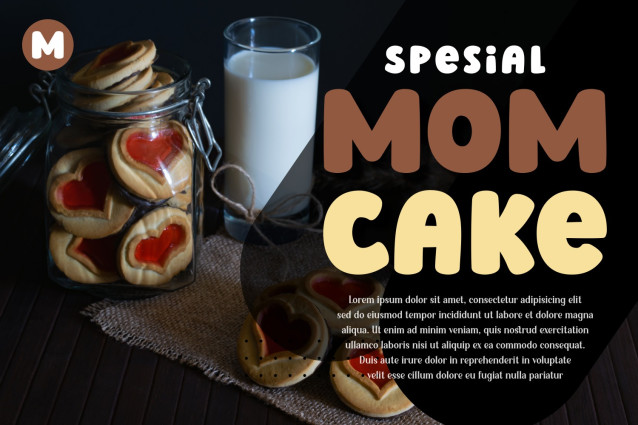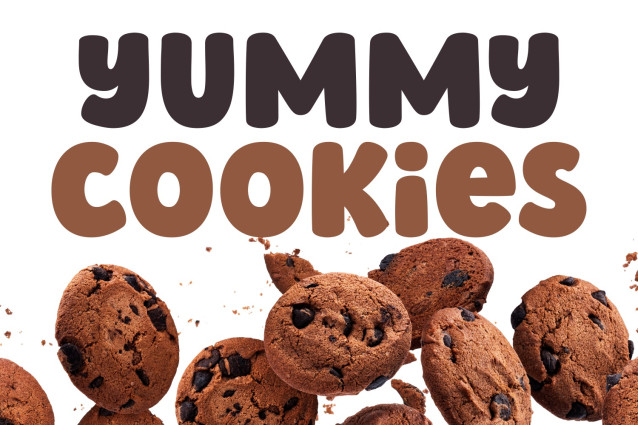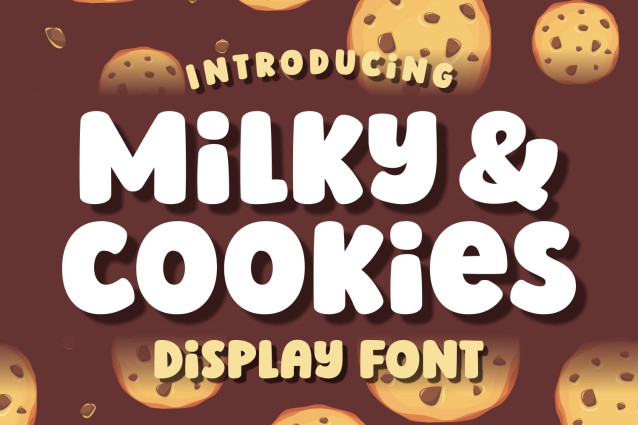
Milky and Cookies Font
Milky and Cookies – a bold, playful, and fun display font that will bring all your design projects to life! Use it for your most creative ideas, and you’ll love the results!